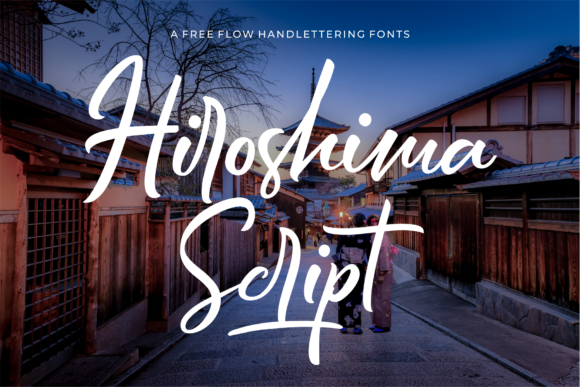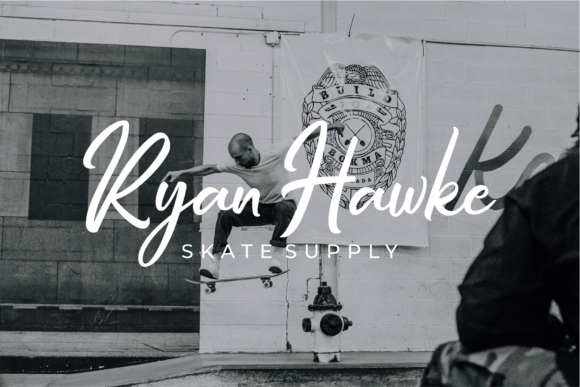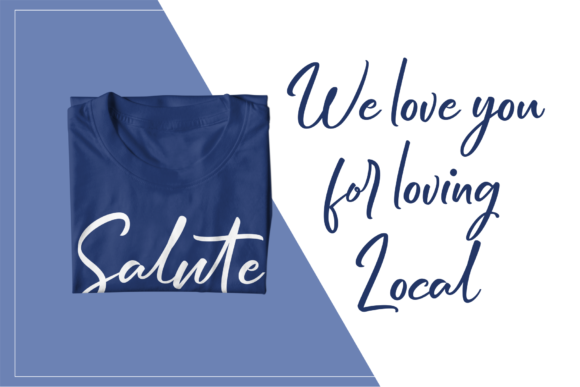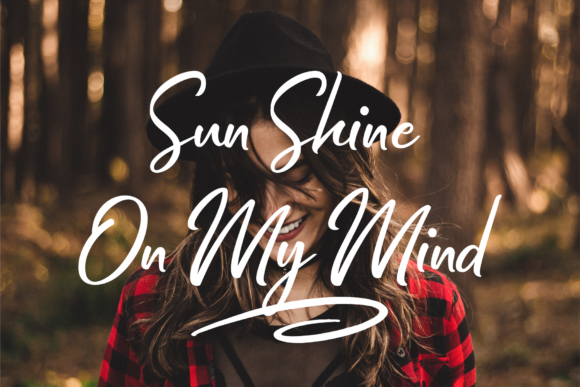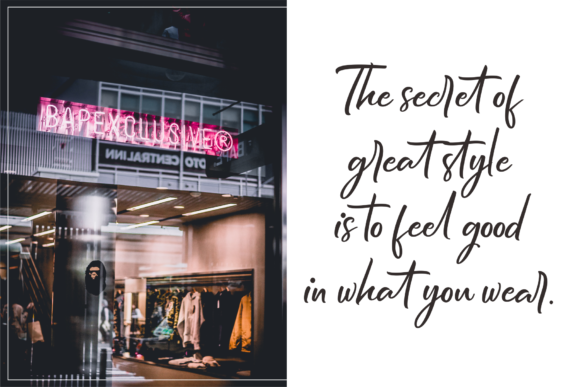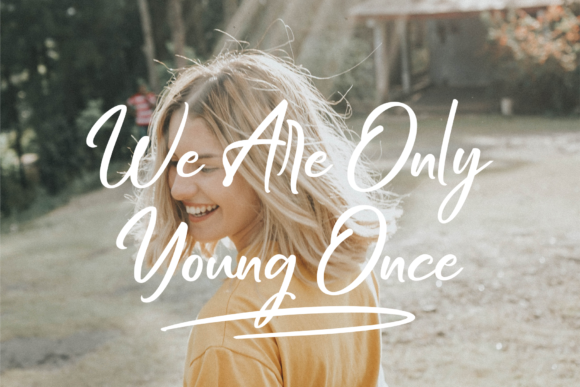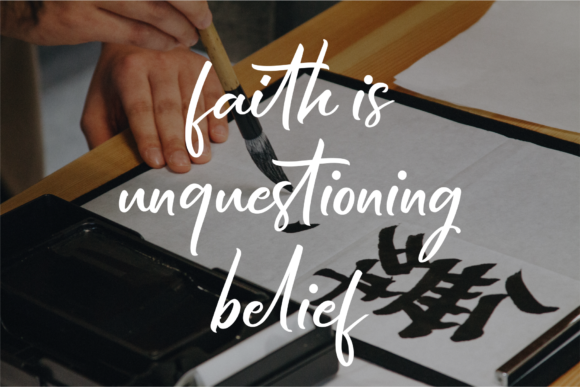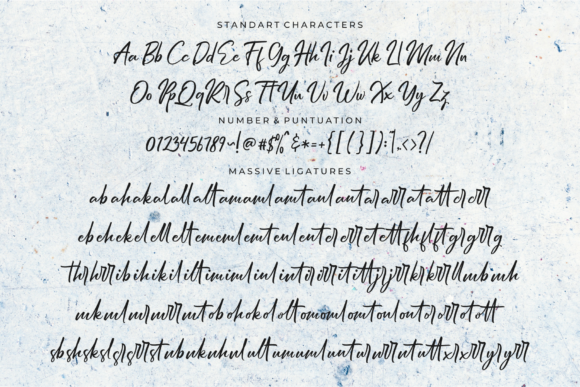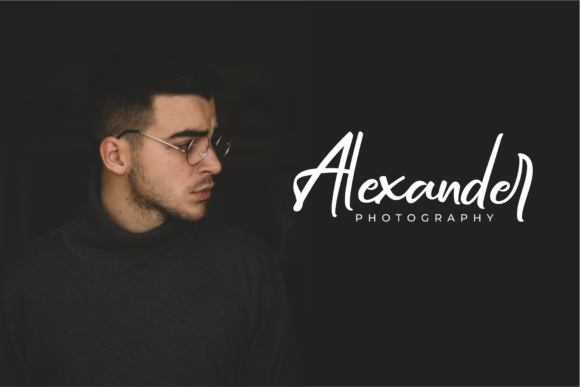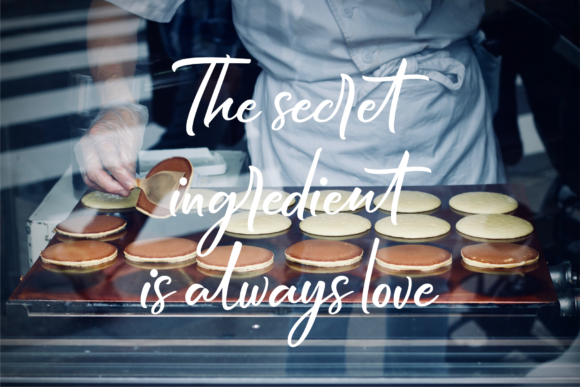
Hiroshima Script Font
About Hiroshima Script Font
The Hiroshima is a casual script with a free flow handwriting. It’s perfect for adding a striking look to your designs!